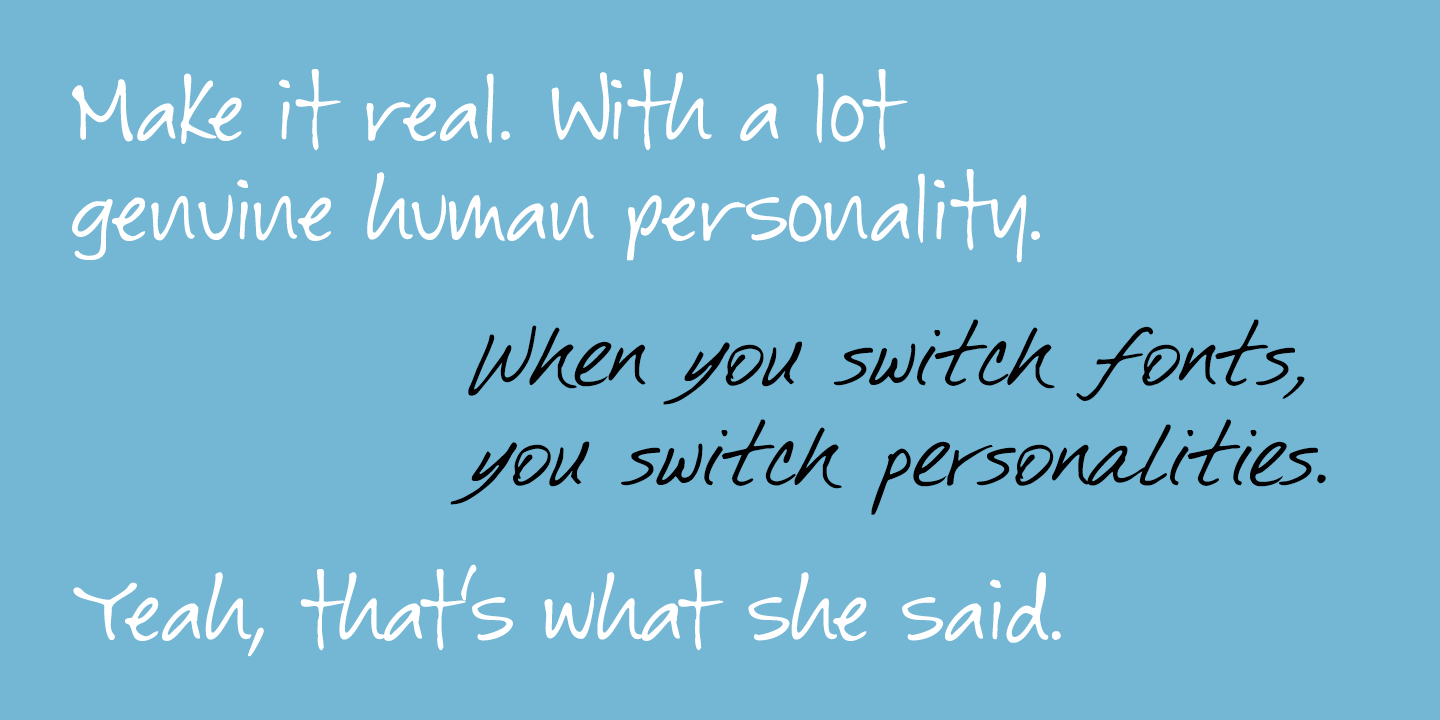
GFY Handwriting Fontpak Font is perfect for personal greeting cards, intimate diary projects, handwritten-style invitations, authentic journal designs, personal branding materials, custom signature logos, heartfelt thank you notes, and genuine design projects that require natural handwriting typography with personal authenticity and human connection character.
This GFY Handwriting Fontpak Font is exciting because it authentically replicates the natural flow and personality of real handwriting with organic letterforms that capture individual character and personal expression, featuring realistic pen variations and human imperfections that create genuine intimacy while maintaining practical readability for personal communications.
The GFY Handwriting Fontpak Font family includes natural weights with authentic handwriting styling, complete character sets with personal uppercase and lowercase letters, handwritten numerals, casual punctuation, and signature symbols that provide comprehensive typography solutions for personal and intimate design projects requiring genuine handwritten aesthetics and authentic human appeal.
Perfect for creating intimate personal communications and authentic human-centered brand identities, GFY Handwriting Fontpak Font Free Download delivers the genuine handwriting typography that transforms text into heartfelt expressions of personal connection and human authenticity. This distinctive typeface embodies the essence of individual personality and human touch, making it essential for projects celebrating personal expression, intimate communications, authentic branding, and any design requiring genuine character with authentic handwriting sophistication and timeless human appeal that creates meaningful connections.